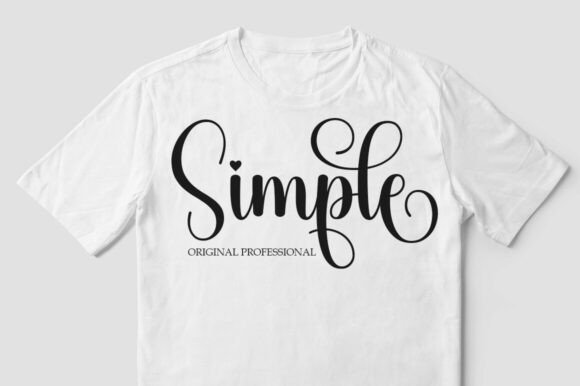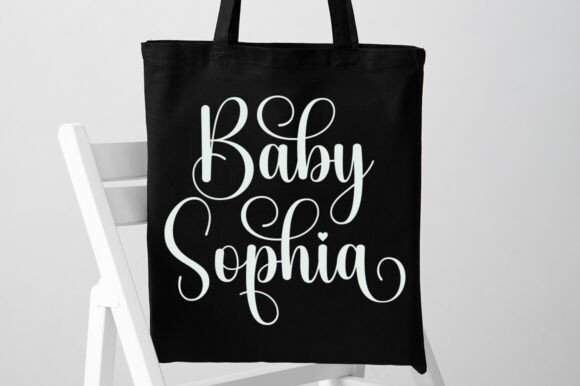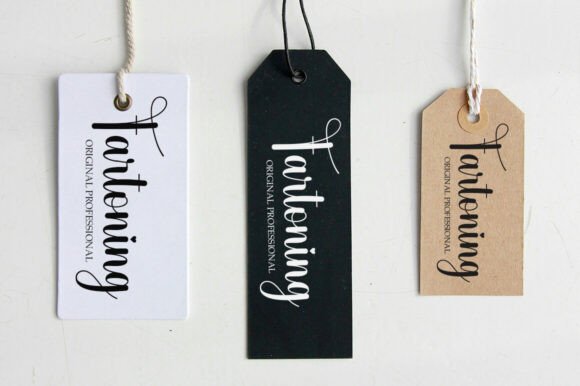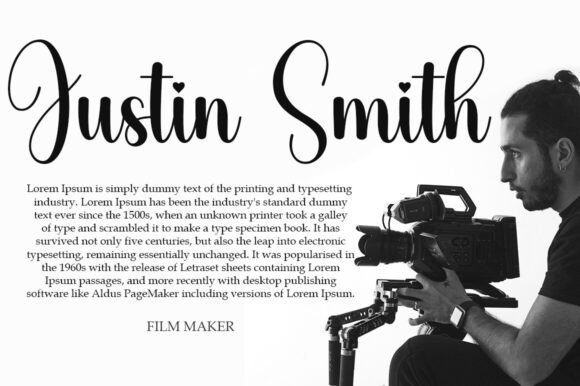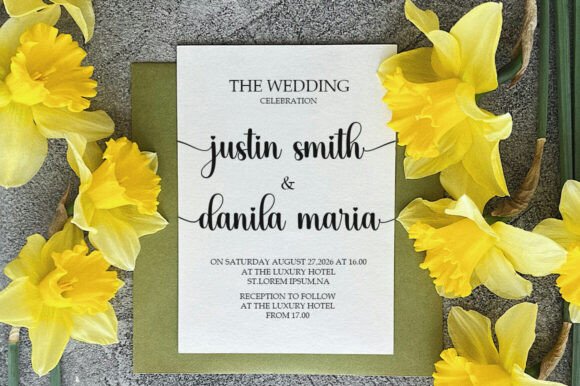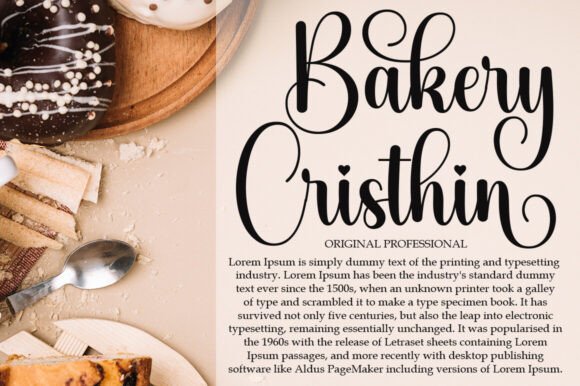
Unleashing Your Creative Flair with the Beauty Signature Font
Have you ever been in the midst of a creative project, pouring your heart and soul into a design, only to feel like something is missing? You know, that elusive touch that elevates your work from good to breathtaking? That’s where the Beauty Signature Font comes in – a stunning handwritten font that adds a personal, human touch to your designs.
This beautiful font is designed to evoke the natural flow of handwriting, making it perfect for a wide range of projects, from wedding invitations to social media logos. Its versatility and elegance make it a valuable asset for designers, allowing them to convey emotion and personality through their work.
Beauty Signature Font Key Features
- Font Family: Beauty Signature Font is a unique, elegant script font designed for personal and professional use. It includes 6 styles: Regular, Italic, Bold, Bold Italic, Script, and Script Italic.
- Unique Characteristics: This font features elegant, flowing lines, and intricate details, making it perfect for adding a touch of sophistication and elegance to any design project.
Beauty Signature Font Review
Overall, I found the Beauty Signature Font to be quite lovely. Here are some things that stood out to me:
- ✨ Elegant and sophisticated look – perfect for luxury brands and high-end marketing materials.
- ✨ Unique and eye-catching design elements, such as the swashes and flourishes, add a touch of personality to text.
- ✨ The font is highly customizable, with a range of font weights, styles, and sizes to choose from.
- ✨ The font is optimized for digital use, making it perfect for websites, social media, and other online platforms.
However, I did encounter a few limitations:
- ⚠️ The font may be too ornate for some users, which can make it difficult to read at small font sizes.
- ⚠️ Some users may find the font to be too “signature” or overly dramatic, which can be a turn-off for those who prefer a more subtle look.
- ⚠️ The font may not be suitable for use in situations where a more straightforward, sans-serif font is preferred.
Overall, I would recommend the Beauty Signature Font to designers who are looking for a luxurious and eye-catching font for high-end projects. However, it’s essential to weigh the potential drawbacks and consider the needs of your specific project before making a decision.
Tips for Getting the Most Out of the Beauty Signature Font
For best results, use the Beauty Signature Font on text elements with a clear and simple design. Avoid using the font on small text elements or with excessive formatting.